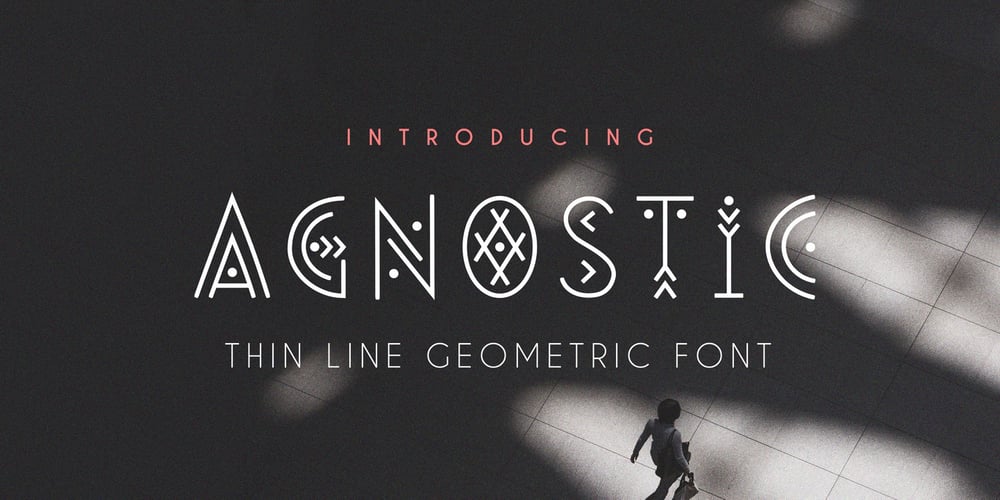
Agnostic Font Font Family was designed by Viktoryia Strukouskaya, Viktor Strukouski and published by Struvictory.art. Agnostic Font contains 2 styles and family package options. Agnostic is a linear font in minimalistic style, uppercase is decorated with geometric elements. The typeface includes Regular and Symbol versions. Letters and symbols are perfectly combined with each other. The font is easy to use in various design programs or without any program, it is perfectly combined with linear scripts and with sans fonts. Agnostic Typeface font is suitable for lettering posters, music albums, tattoos and photo overlays in hipster style. The font is also suitable for event design and city identity. Agnostic font works great both for printing clothes and craft products branding and packaging. Also use individual letters and symbols to create logos and monograms.